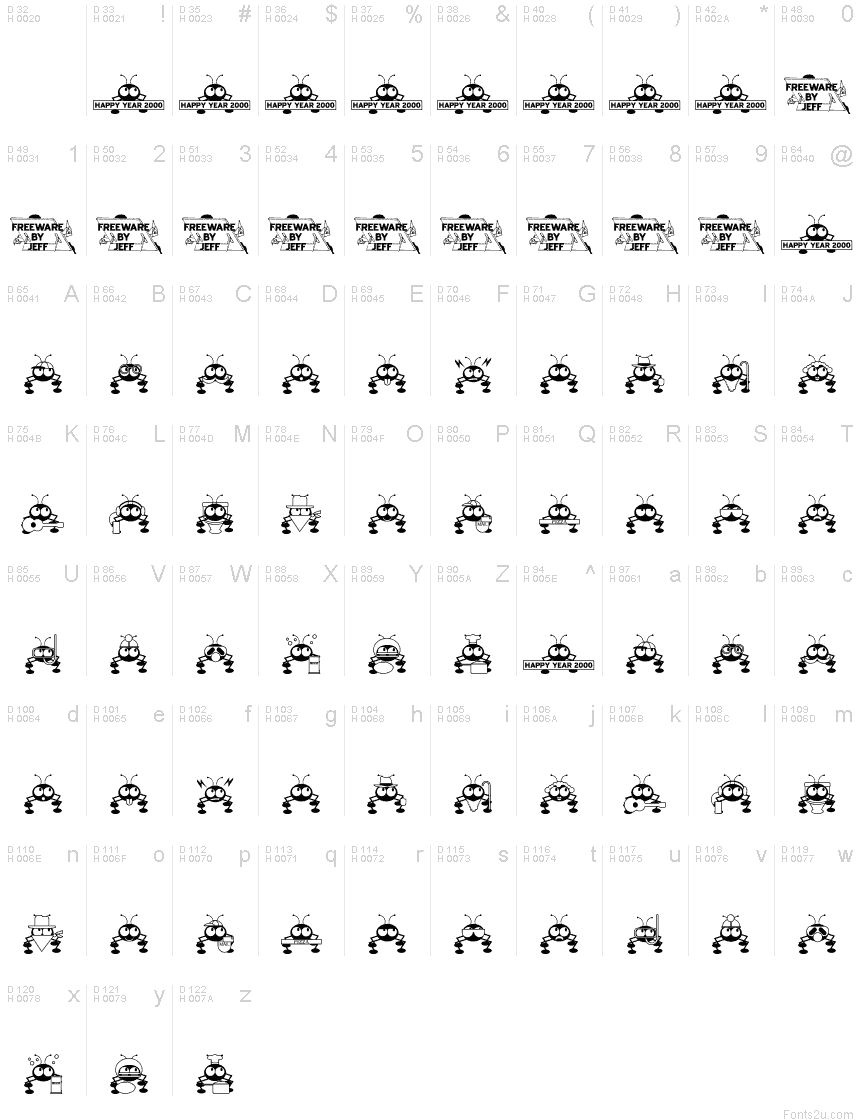
Don't Bug Me JL
Don't Bug Me JL font by Jeffrey N. Levine is a free animals dingbat typeface packed with squishy, wide-eyed cartoon ants in every mood. Each glyph feels like a tiny comic strip panel—ants with glasses, hats, canes, musical instruments, and goofy expressions, all drawn with thick, inky outlines that hold up even at small sizes. Drop them into your layouts like stickers to add a quick hit of humor, energy, and personality without needing custom illustrations.
Using Don't Bug Me JL, you can quickly brighten kids’ science projects, bug-themed party invites, classroom worksheets, reading logs, playful logos, and social media graphics. This free font works beautifully alongside a clean rounded sans serif, letting the ants carry the character while the text stays clear. Try using the dingbats as section dividers, bullet points, or little “mascots” in the corners of your pages for a fun, cohesive theme.
A batch of creepy crawlies in honor of the incessant ramblings about the Y2K bug.